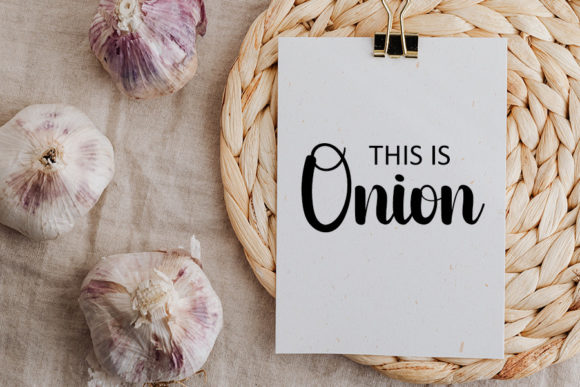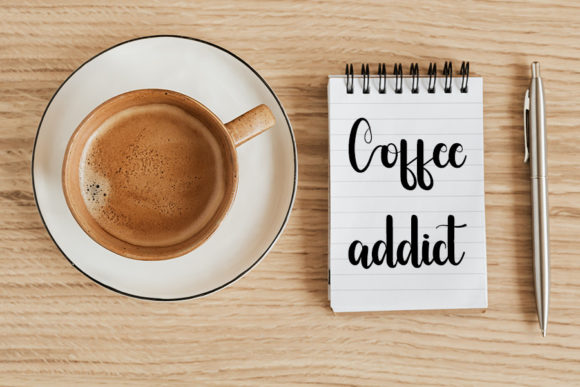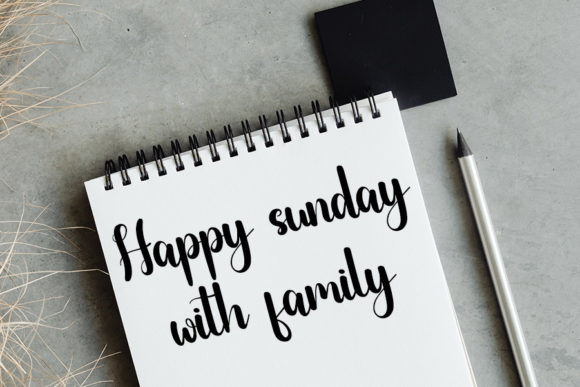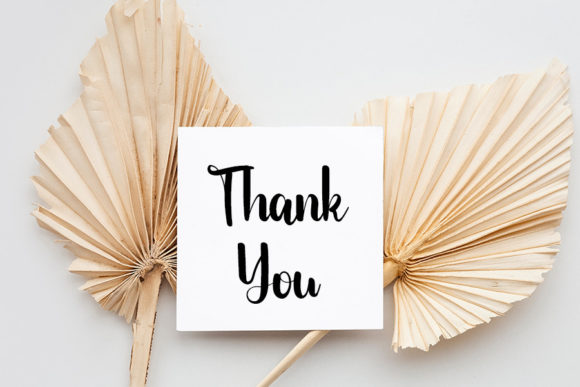
Introducing Daily Kitchen: A Timeless Handwritten Font for Your Design Projects
In the world of typography, a well-crafted font can elevate your design projects from ordinary to extraordinary. For designers, crafters, and creatives, finding the perfect font can be a daunting task. However, if you’re looking for a stylish and contemporary handwritten font that exudes elegance and sophistication, look no further than Daily Kitchen.
Inspired by Timeless Classic Calligraphy
Daily Kitchen is a beautiful handwritten font that draws inspiration from timeless classic calligraphy. With its impeccable form and balanced design, this font is perfect for adding a touch of elegance to your projects. The creator of Daily Kitchen has skillfully blended traditional calligraphy techniques with modern design elements to produce a font that is both classic and contemporary.
A Contemporary Atmosphere with Impeccable Form
One of the standout features of Daily Kitchen is its impeccable form. Each letter has been carefully crafted to ensure that the font flows smoothly and consistently, making it perfect for use in a variety of design projects. Whether you’re working on a logo, branding materials, or digital content, Daily Kitchen’s contemporary atmosphere and stylish design are sure to impress.
Balanced and Varied Design
Daily Kitchen’s design is not only stylish but also balanced and varied. The font features a range of letterforms, including uppercase and lowercase letters, numbers, and punctuation marks. This means that you can use Daily Kitchen to create a wide range of design projects, from simple and elegant to complex and ornate.
Whether you’re a designer, crafter, or creative, Daily Kitchen is the perfect font for your projects. Its versatility and elegance make it suitable for use in a variety of applications, including:
- Logo design and branding
- Digital content creation, such as blog posts and social media graphics
- Print materials, including invitations, menus, and brochures
- Crafting and DIY projects, such as handmade cards and gift tags
Why Choose Daily Kitchen?
So why choose Daily Kitchen over other fonts? Here are just a few reasons:
- Unique and stylish design: Daily Kitchen’s elegant and contemporary design sets it apart from other fonts.
- Impeccable form: The font’s impeccable form ensures that it flows smoothly and consistently, making it perfect for use in a variety of design projects.
- Balanced and varied: Daily Kitchen’s balanced and varied design makes it suitable for use in a wide range of applications.
- Easy to read: Despite its elegant design, Daily Kitchen is easy to read, making it perfect for use in digital content and print materials.
In conclusion, Daily Kitchen is a stylish and elegant handwritten font that is perfect for designers, crafters, and creatives. Its timeless classic calligraphy inspiration, impeccable form, and balanced design make it suitable for use in a wide range of design projects. Whether you’re looking to add a touch of elegance to your logo, branding materials, or digital content, Daily Kitchen is the perfect choice.